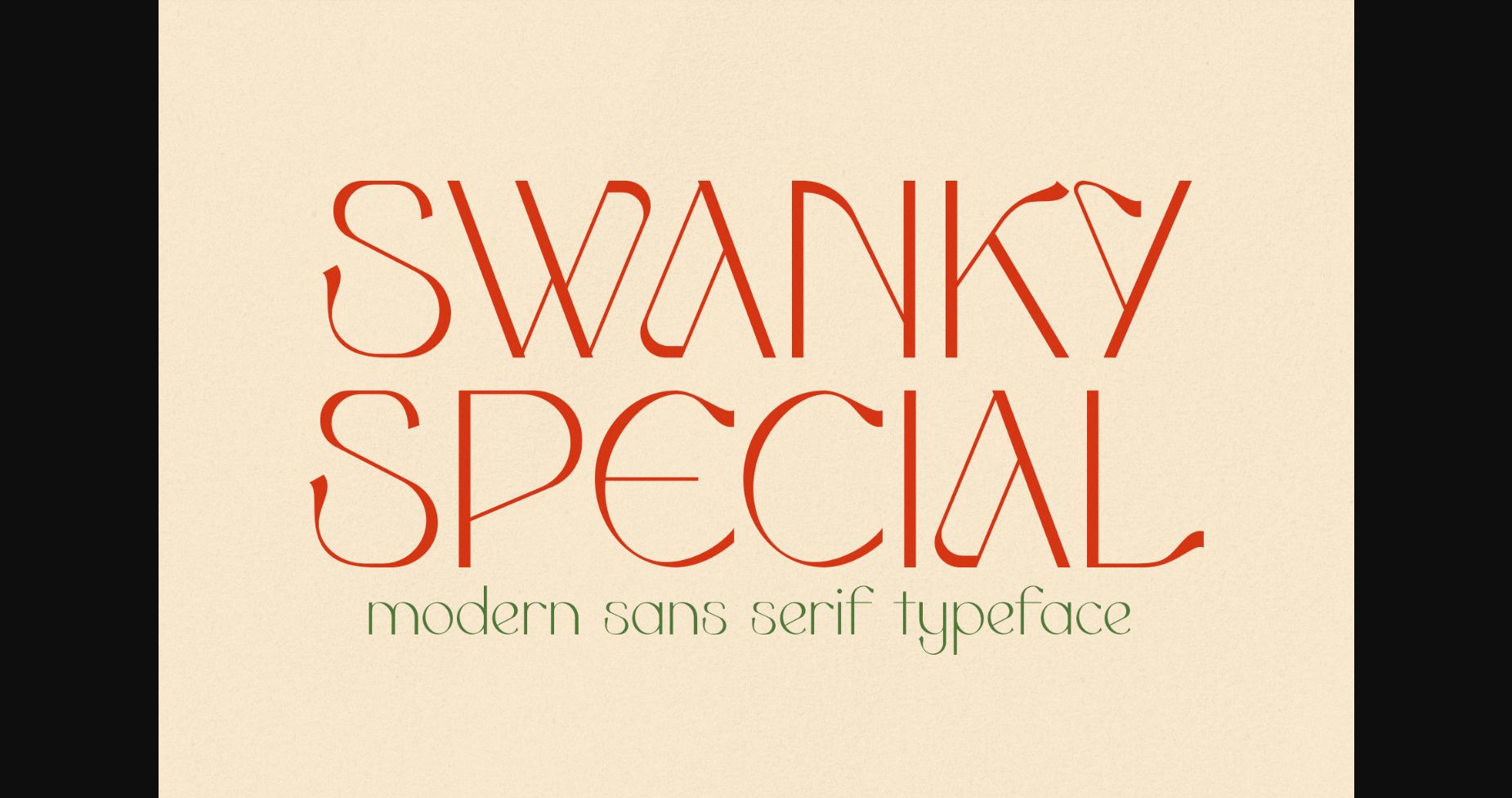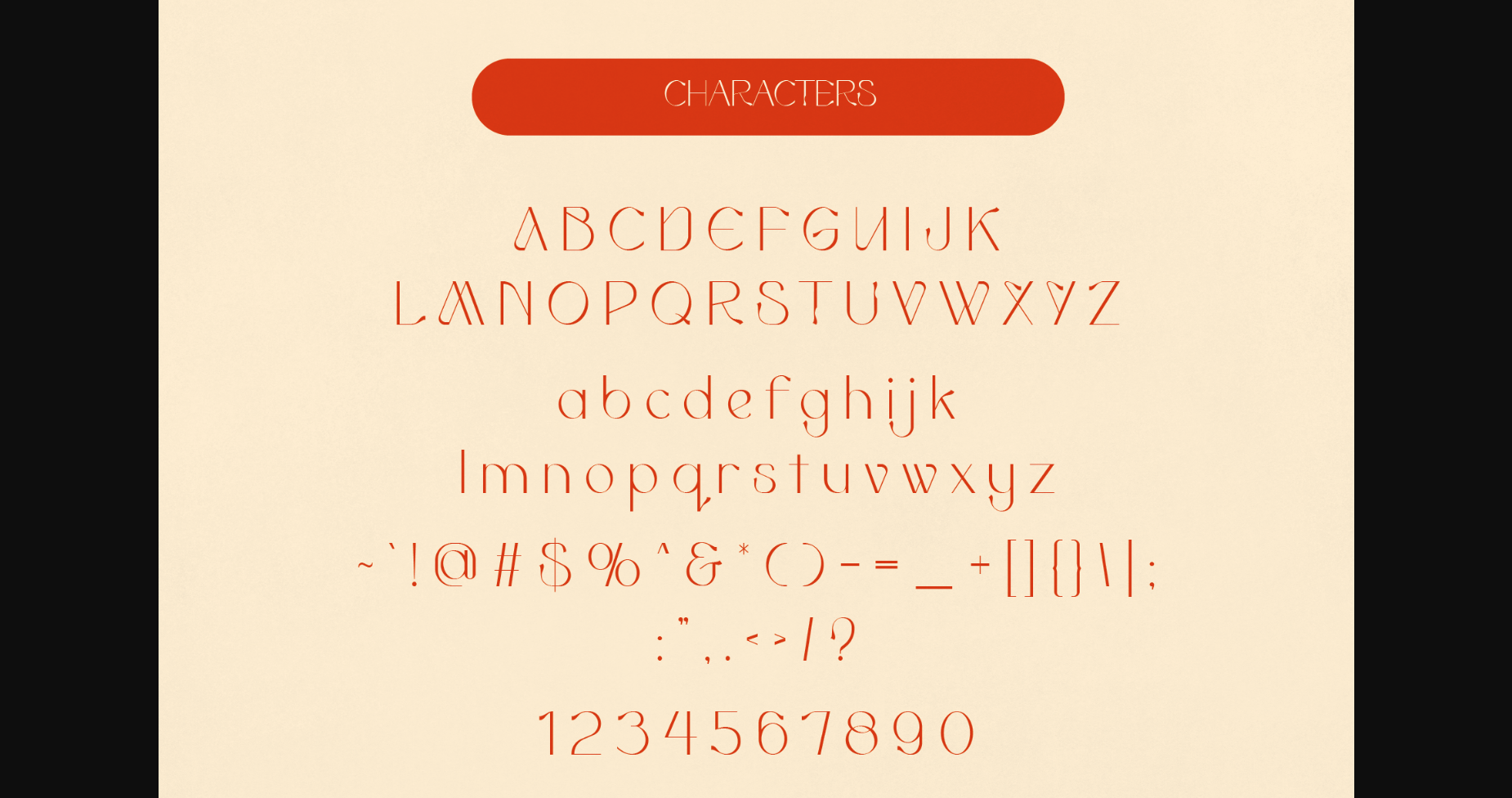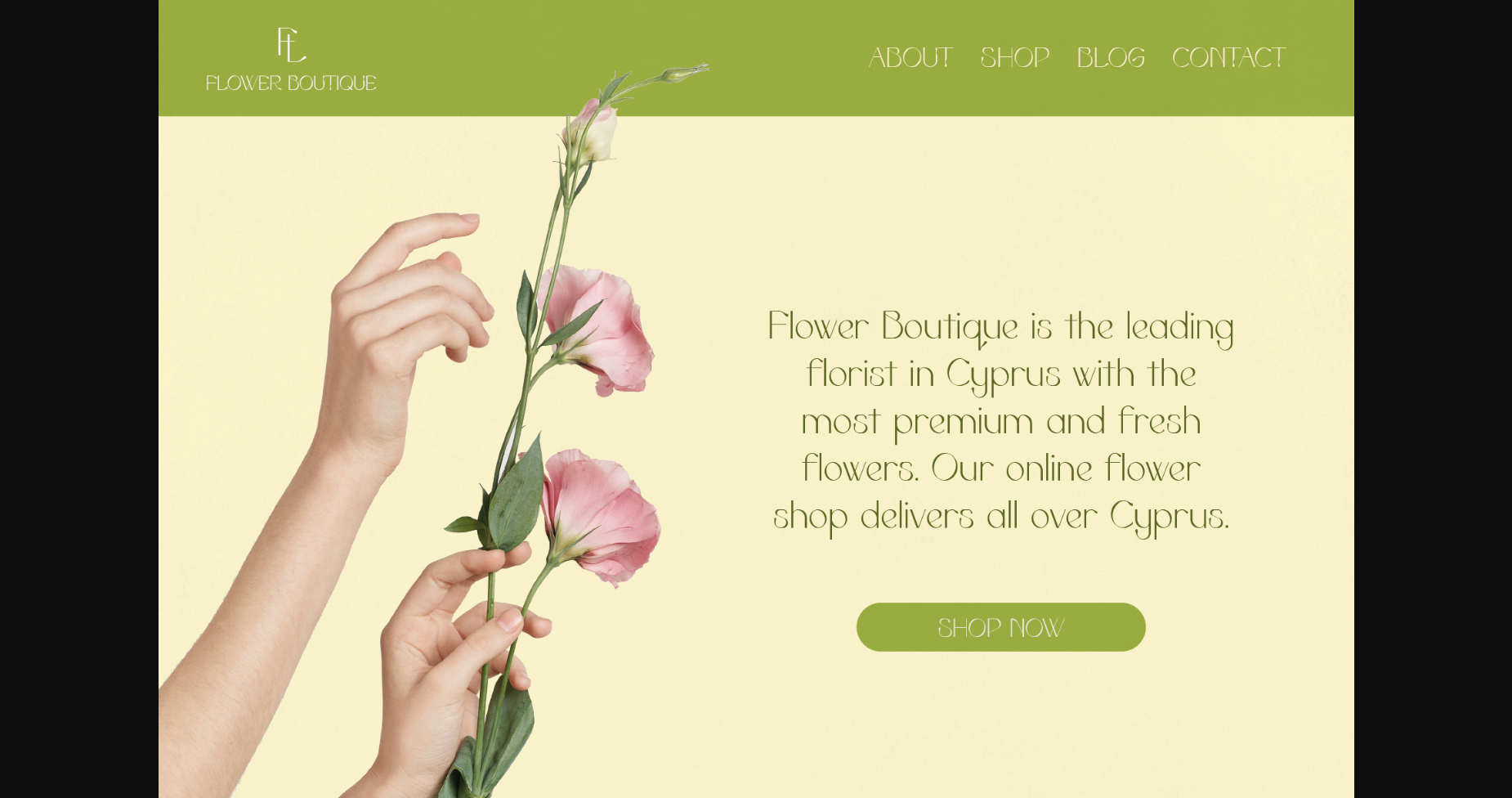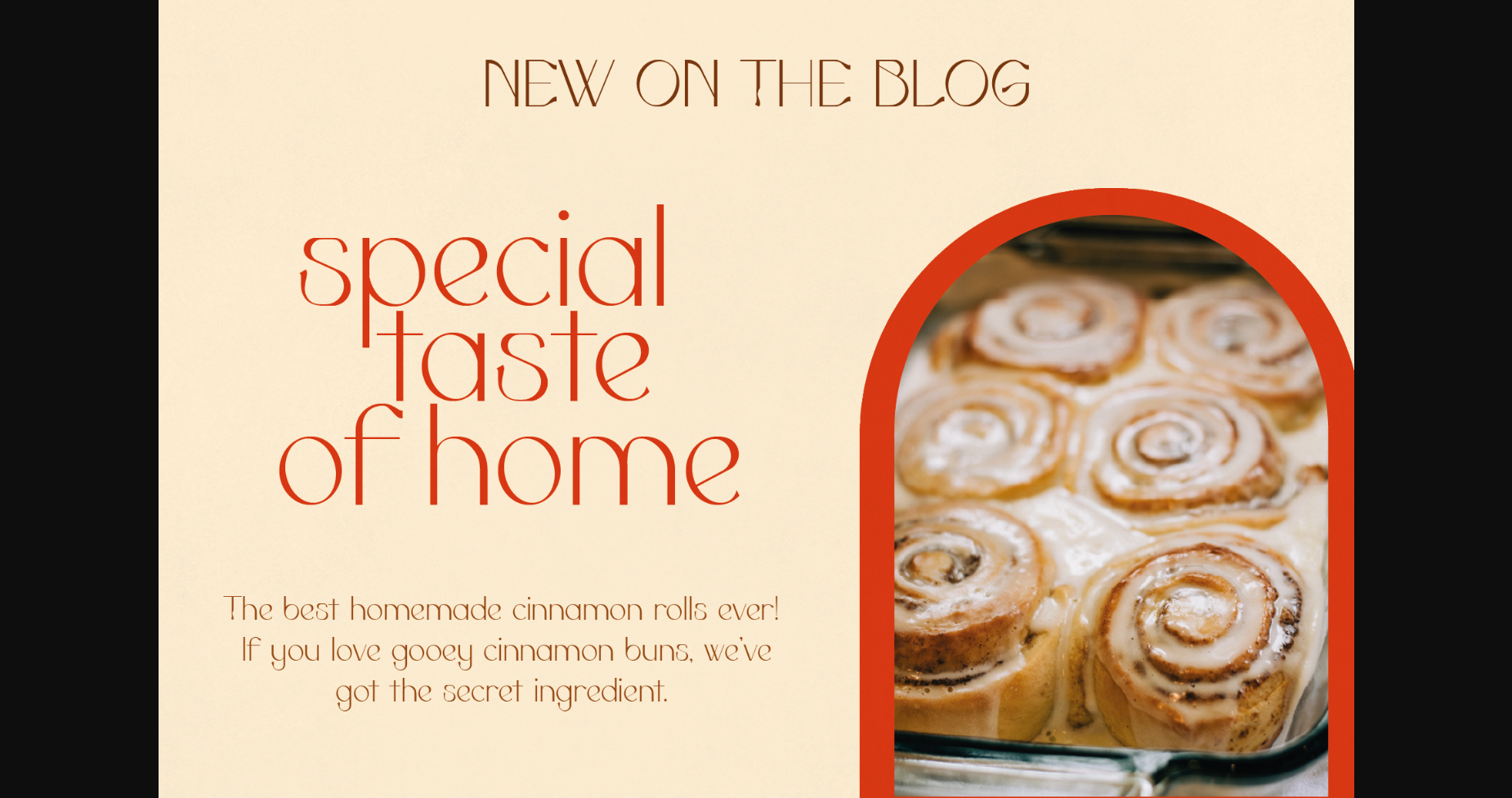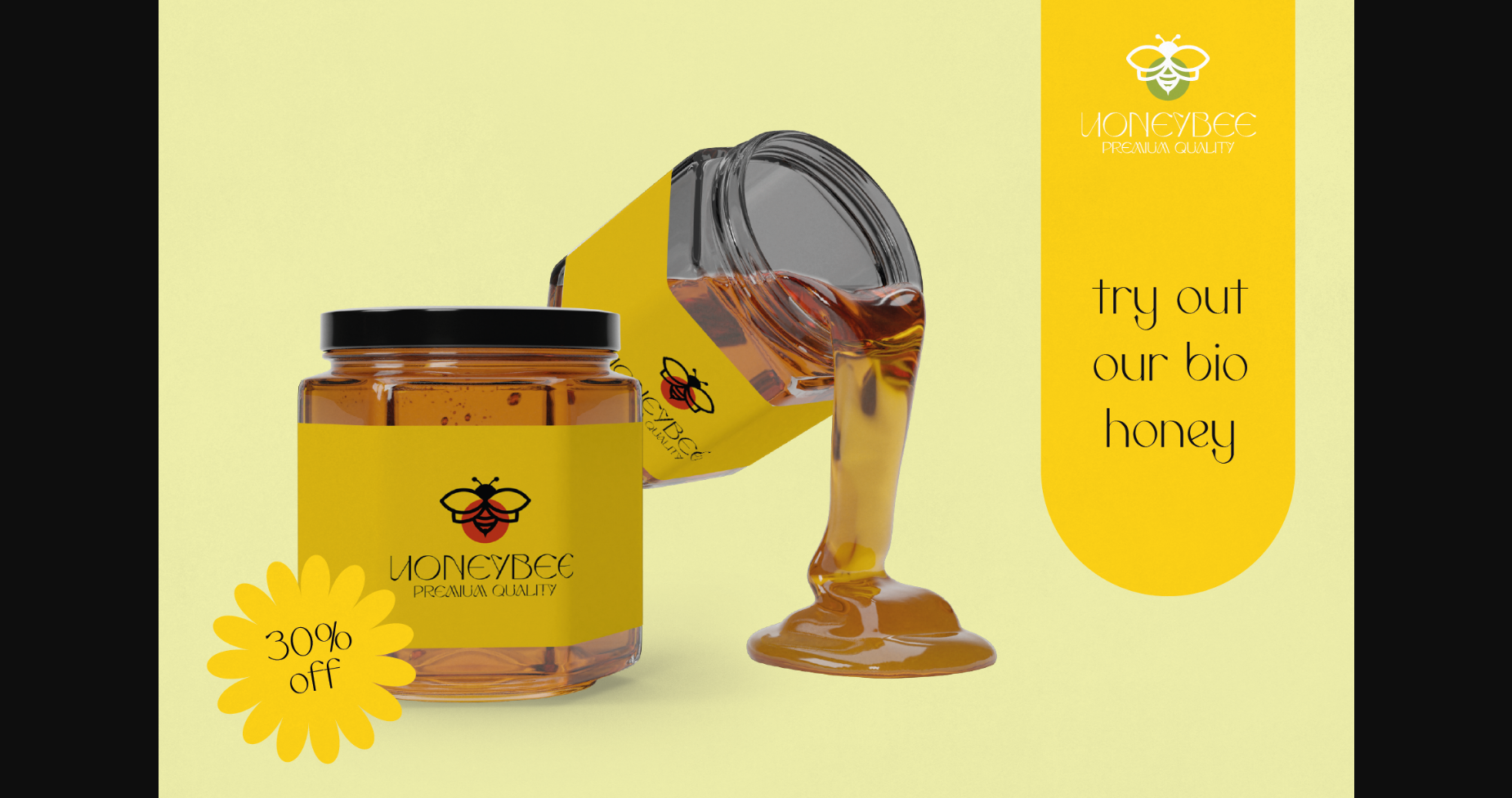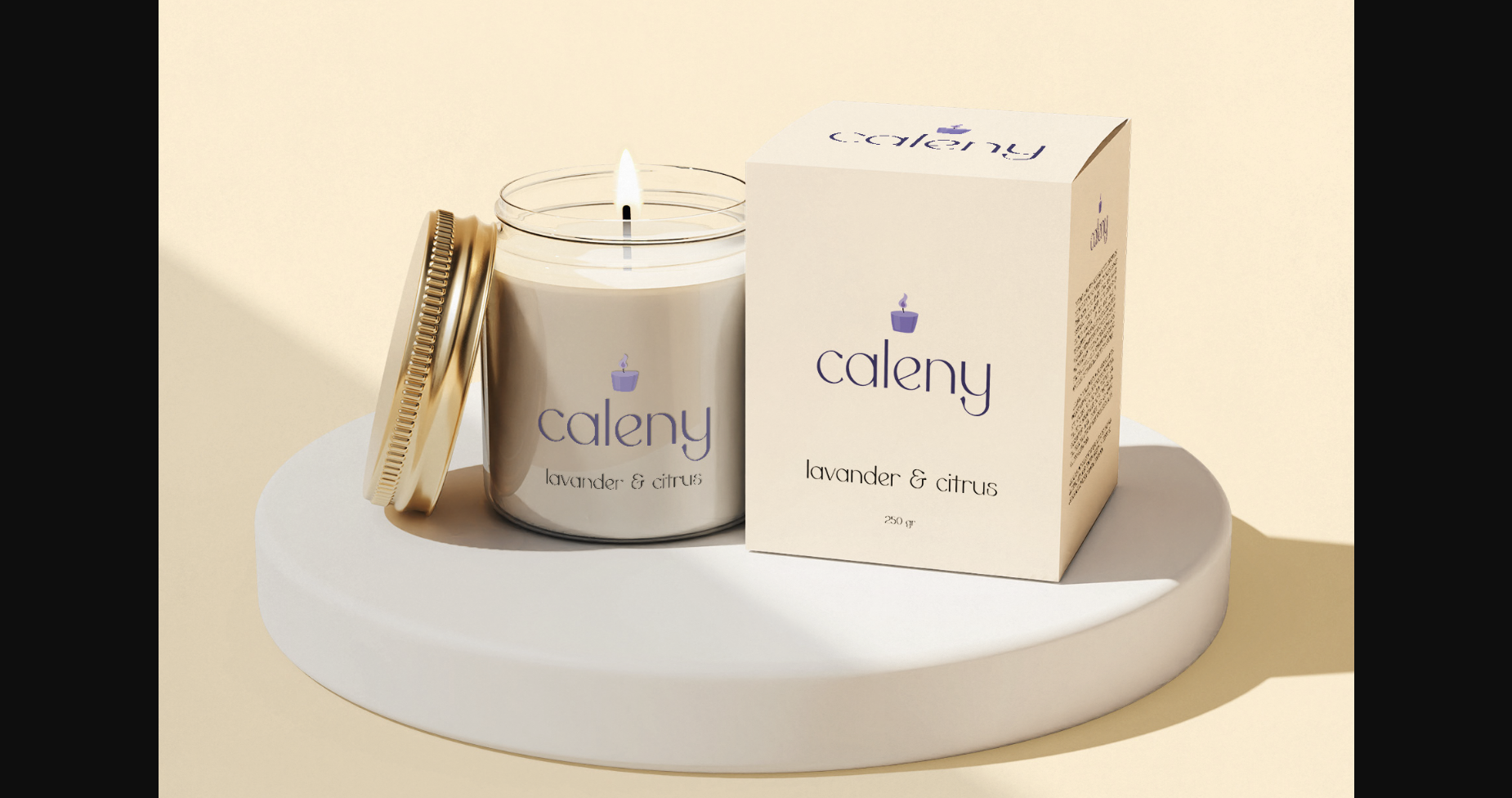
Swanky Special Font
About Swanky Special Font
Swanky Special is an elegant and experimental typeface perfect for designs that demand a high level of sophistication.
Its clean and modern sans serif shapes embody a sense of class while still maintaining an experimental edge.
Swanky Special is the perfect typeface for creating eye-catching designs. Its distinct shapes provide plenty of opportunities for designers to express their creativity in a new way. You can use it to create memorable logos, editorial design, quotes, invitations, packaging, stationery, book titles, and much more.
Swanky Special is the ideal typeface for creating bold, stylish, and memorable designs that are bound to stand out from the crowd.